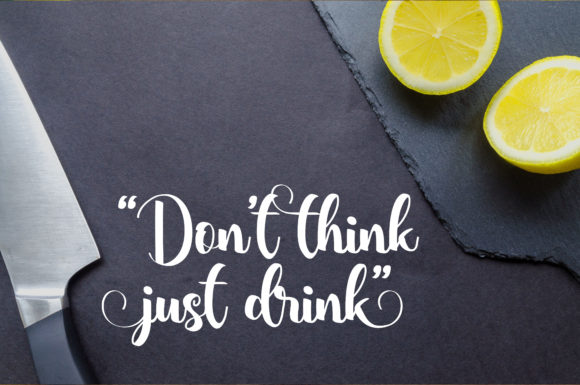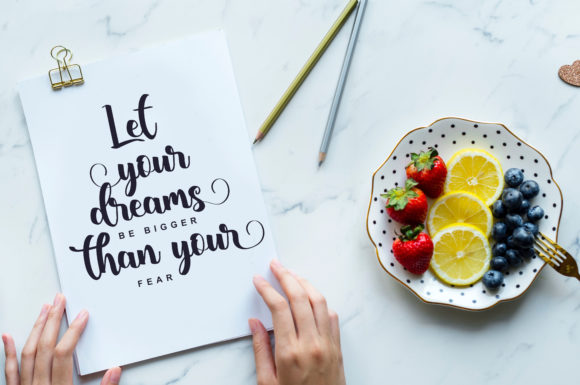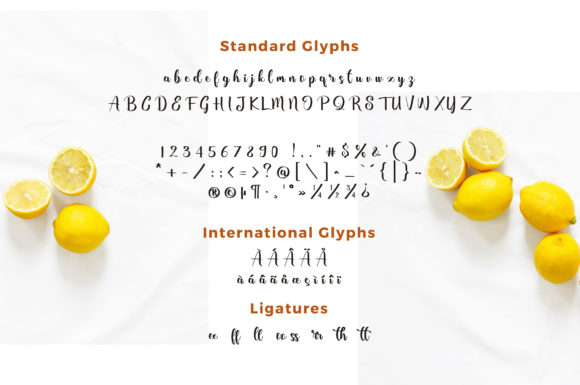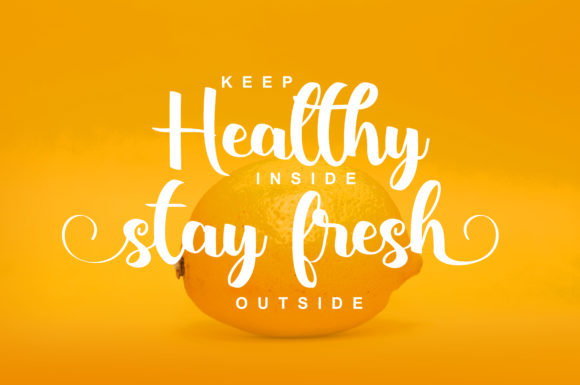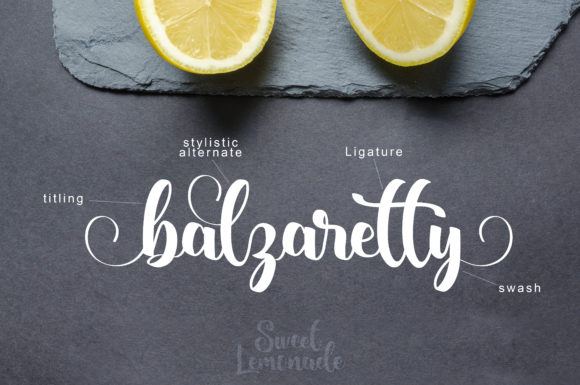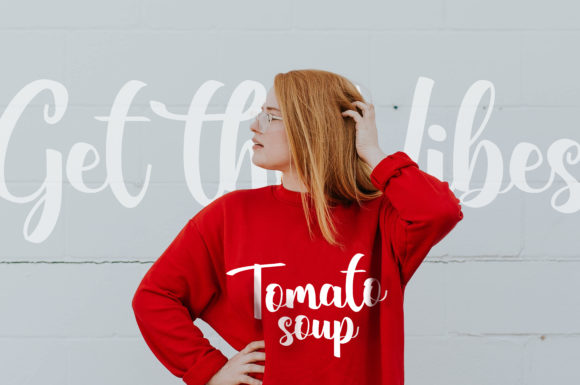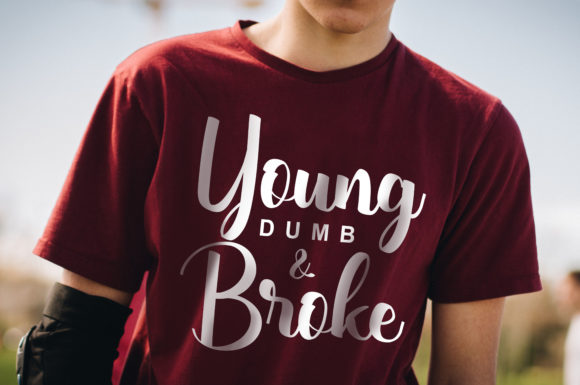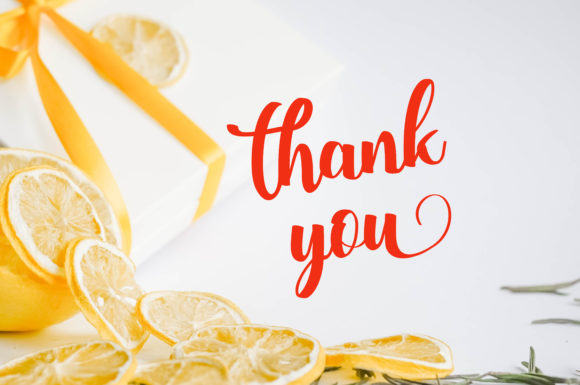
Sweet Lemonade Font
About Sweet Lemonade Font
The Sweet Lemonade is a beautiful, smooth, delicious handwritten font.
It can be used for various purposes such as logos, t-shirts, magazines, cover albums, quotes, birthday quotes and much more!